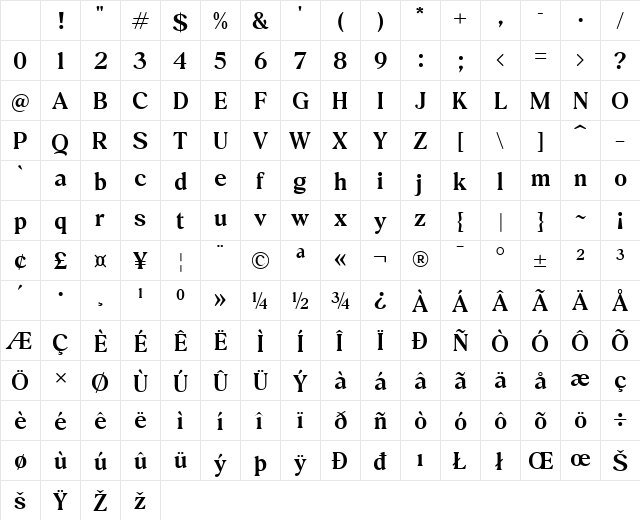
Complete Exclusive Editorial Regular glyph index. Displaying only characters natively supported by Exclusive Editorial Regular font.
Exclusive Editorial is a composed and adaptable typeface that performs quietly and consistently across a wide range of design contexts.
Pro Tip: Use Exclusive Editorial in both headline and body roles to test its range before committing to a single application.